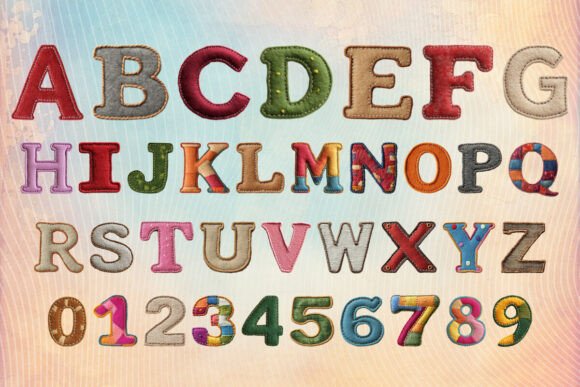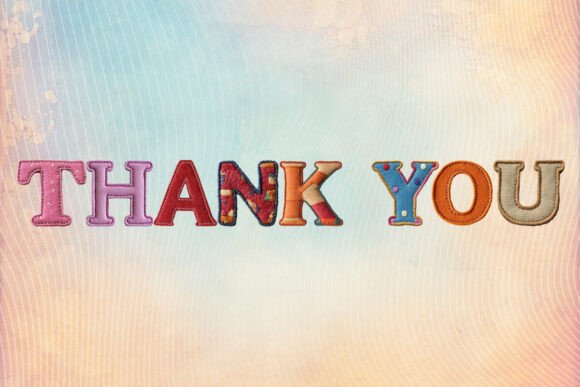
Felt Stitches Font
Introducing the Felt Stitches Alphabet font – an artistically vibrant canvas of lettering. With its blend of vivacious colors, it summons the cheer of the holiday season. Reminiscent of cozy Christmas celebrations, this font is a visual treat. It stitches together the joy of crafting with the warm festive spirit, resulting in a unique font that is a delight to use for any holiday-themed project. Unleash the magic of the Felt Stitches Alphabet font and add a charming touch of warmth and color to your designs. With such playful versatility, it’s more than just a font, it’s a manifestation of heartwarming holiday creativity.